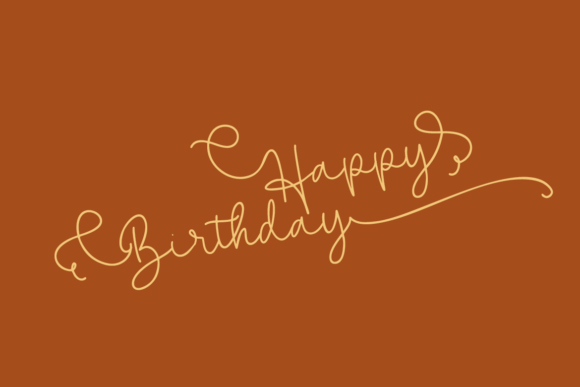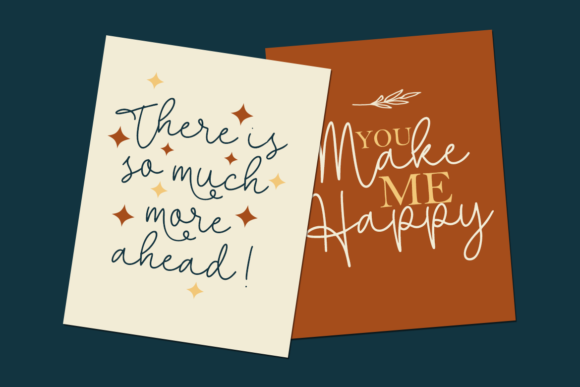
Shallylova Font
db-ku.com - Script & Handwritten -- Shallylova is a lovely and delicate script font that exudes elegance and class. This font was particularly crafted for those who need a beautiful and refreshing look to their designs.